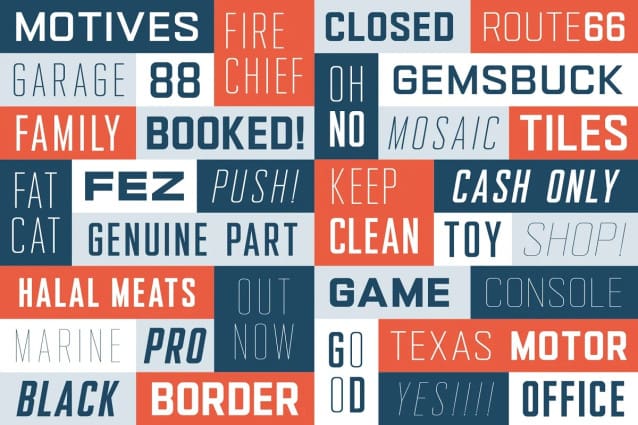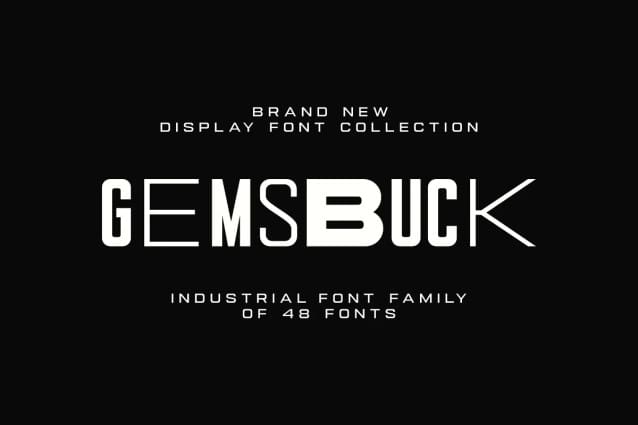
Gemsbuck 03 Font
Gemsbuck 03 Font – Gemsbuck is a collection of modern industrial font that contains more than 40 fonts that will provide various colors that will color the user’s project.
The variety of weights of this font from thin to black provides a variety of options that help you to find the best typography color for your creative project. Gemsbuck is specially designed for the need for big visuals and deep emotional impact.
The variety of options from condensed to expanded and from thin to black gives you the freedom to create something extraordinary that has never been thought of before. Gemsbuck lends its thick voice to all its users for something louder and bolder.
The impression that Gemsbuck wants to give is a firm sans serif that is usually used for industrial needs but also relaxed.